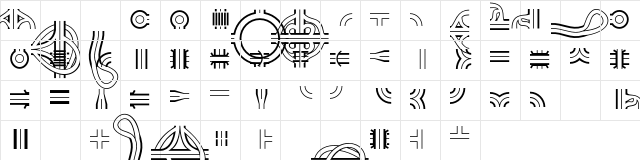
Complete A44 streets glyph index. Displaying only characters natively supported by A44 streets font.
A44 is a composed and adaptable typeface that performs quietly and consistently across a wide range of design contexts.